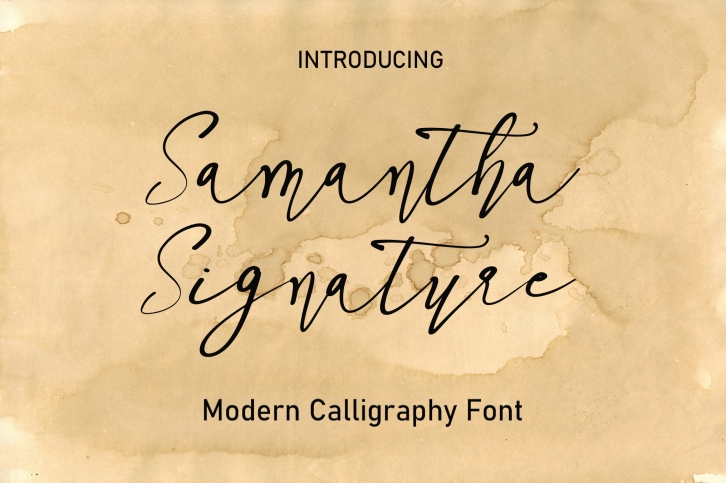
Samantha Signature is a romantic and sweet calligraphy typeface with characters that dance along the baseline. It has a casual, yet elegant touch. This font is PUA encoded which means you can access all of the glyphs and swashes with ease!